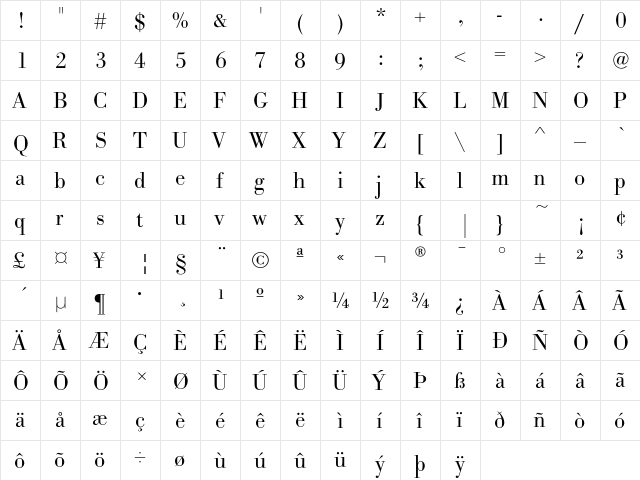
BodoniEF Light
Design Context for BodoniEF Typeface
BodoniEF is a composed and adaptable typeface that performs quietly and consistently across a wide range of design contexts. Its slender proportions lend an understated elegance to any composition.